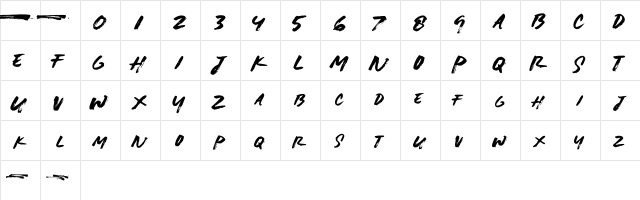
LIGHTBRUSH Light
Design Context for LIGHTBRUSH Typeface
LIGHTBRUSH brings a calligraphic fluidity to the page — its connecting strokes and expressive curves give it an unmistakably human quality. The delicate stroke weight brings airiness and refinement to layouts.